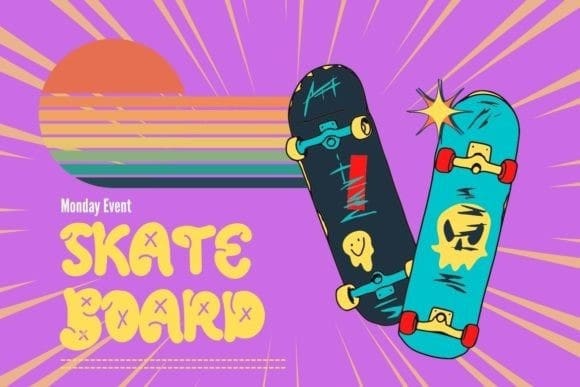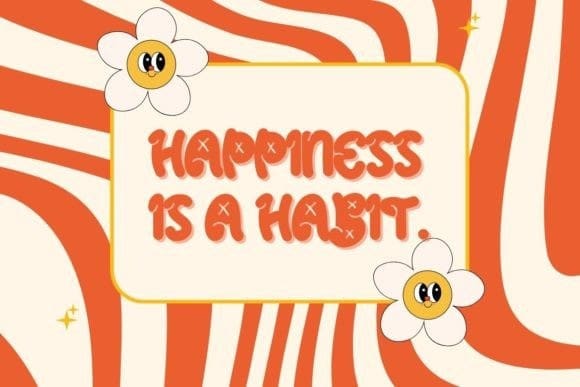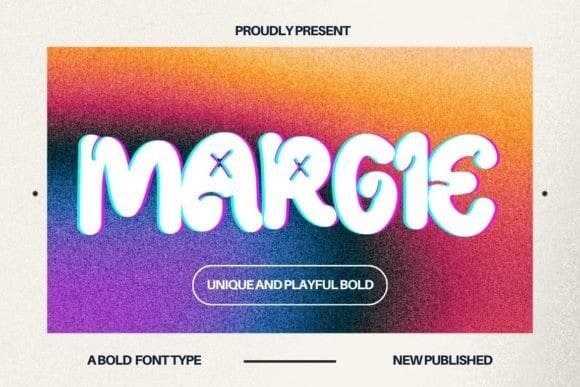
Margie Display Font
Margie Display Font is a fun and playful display font. A little bit quirky, this font looks incredibly adept in a wide variety of contexts!